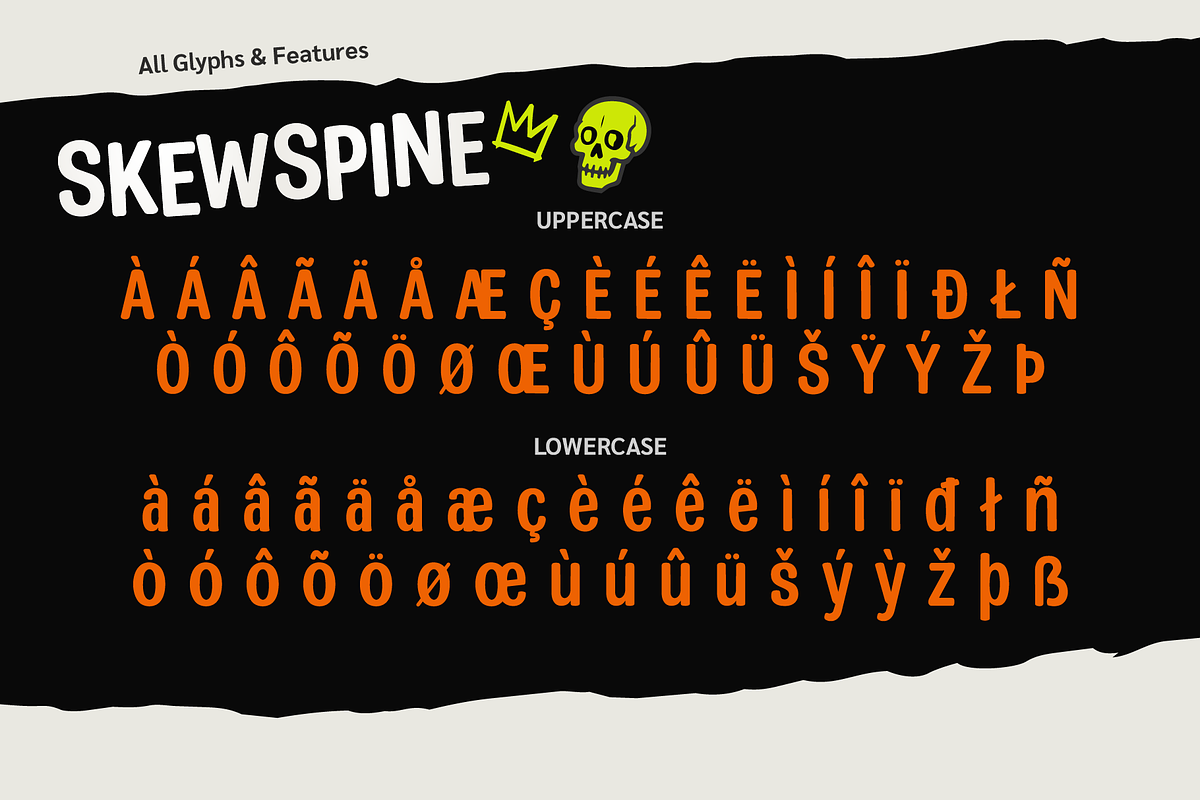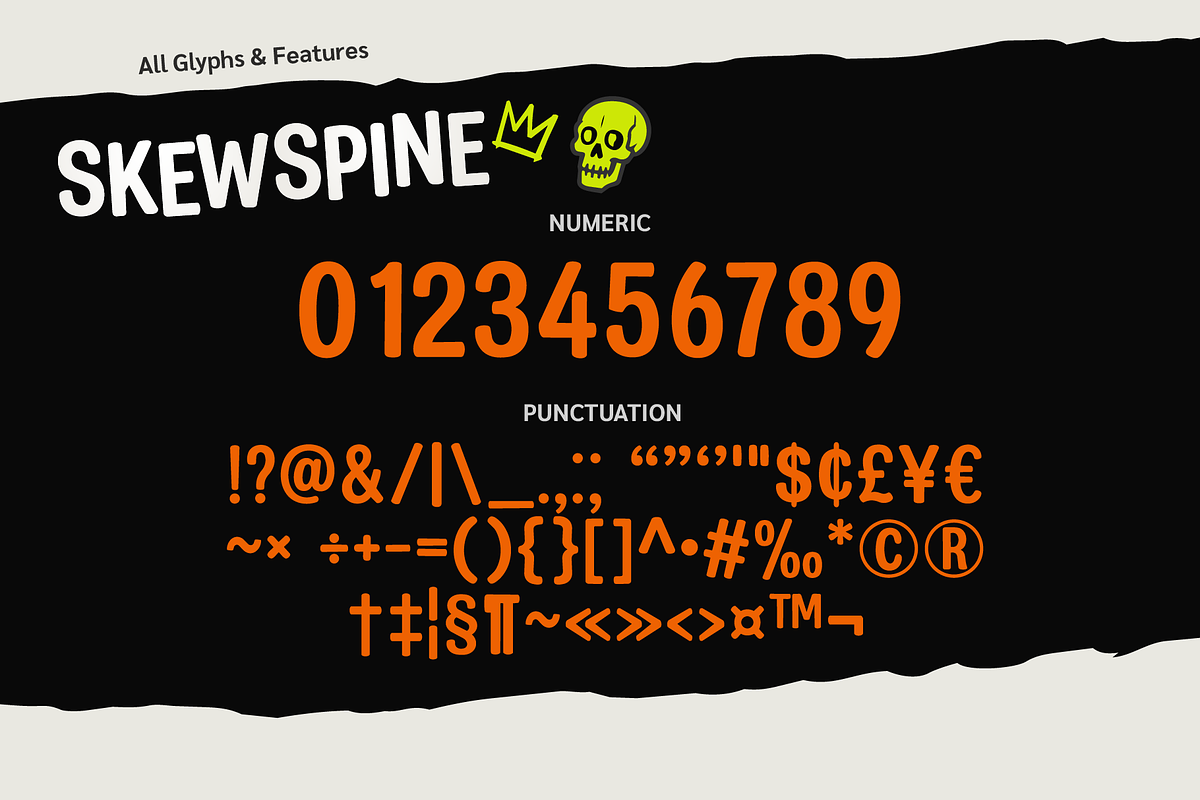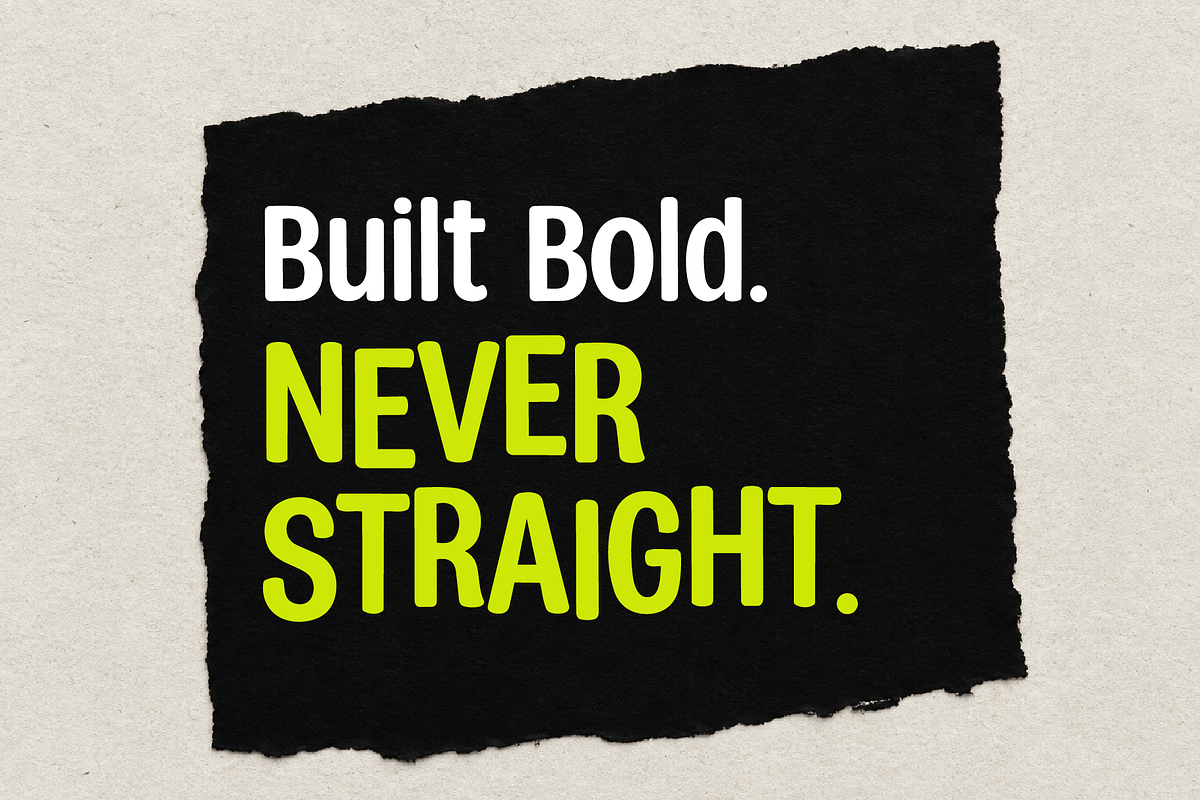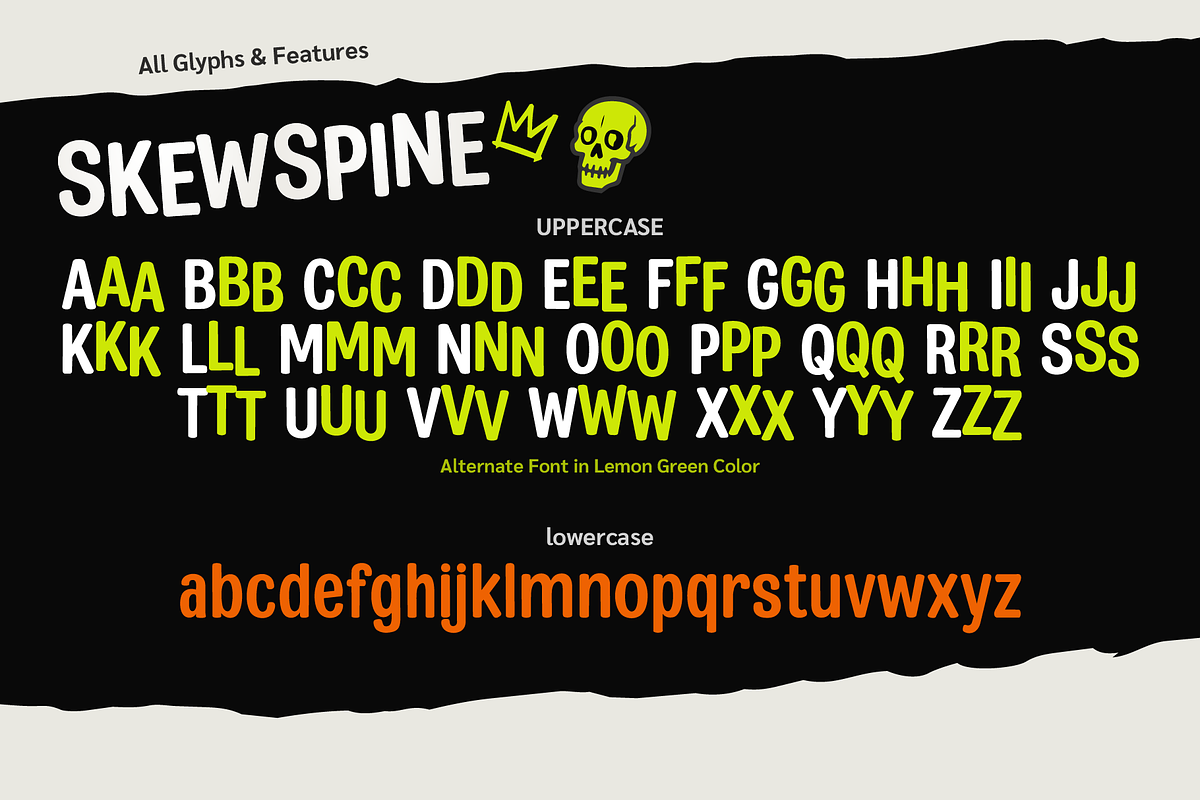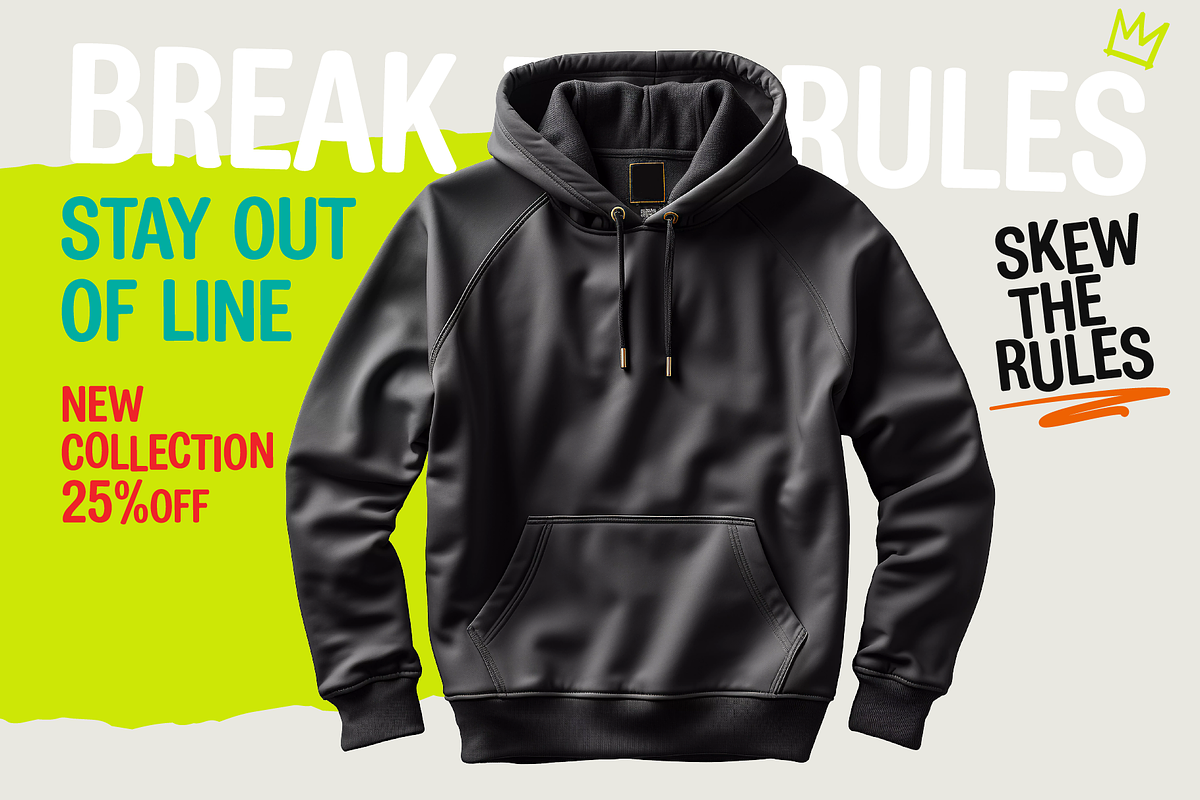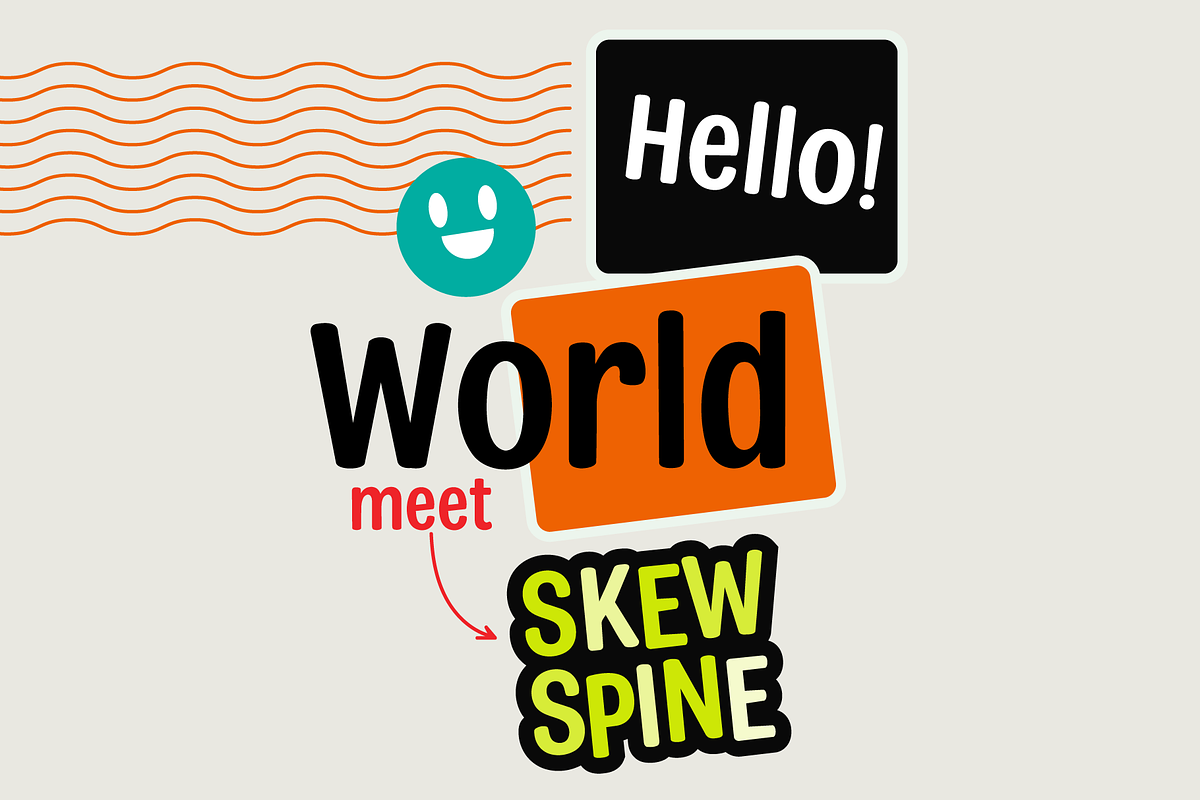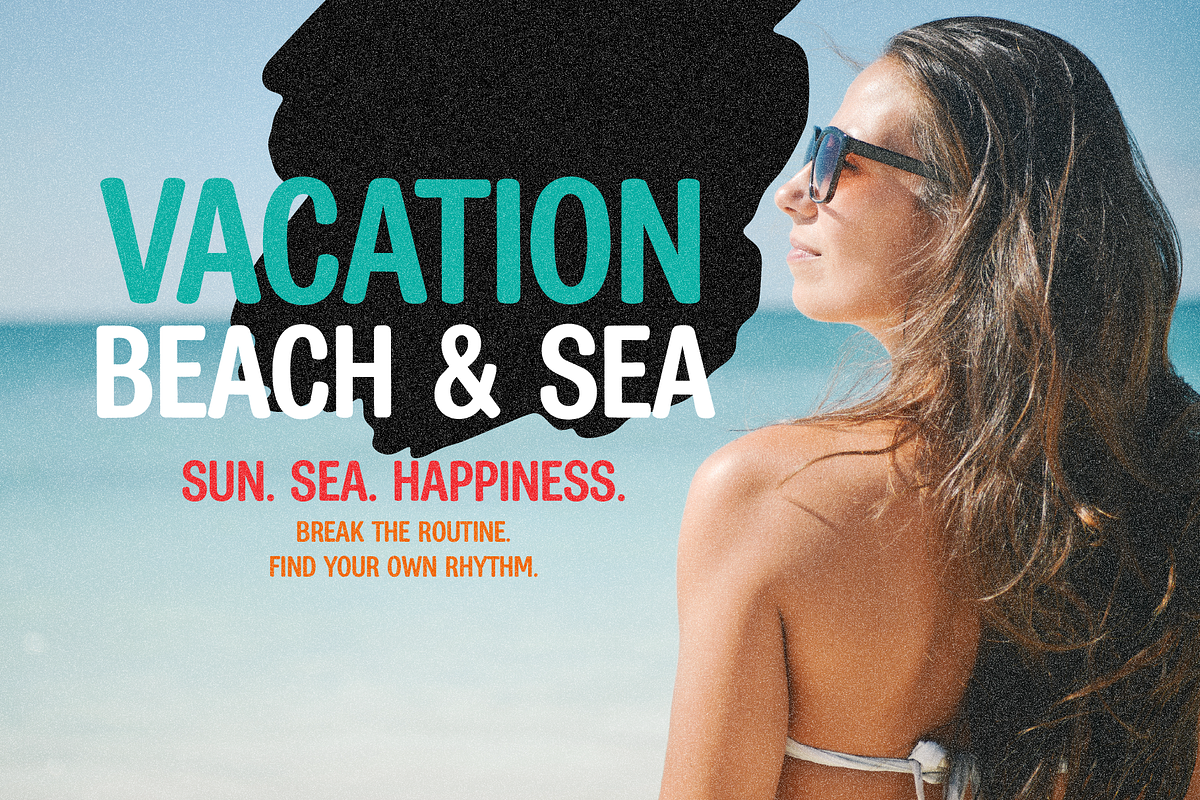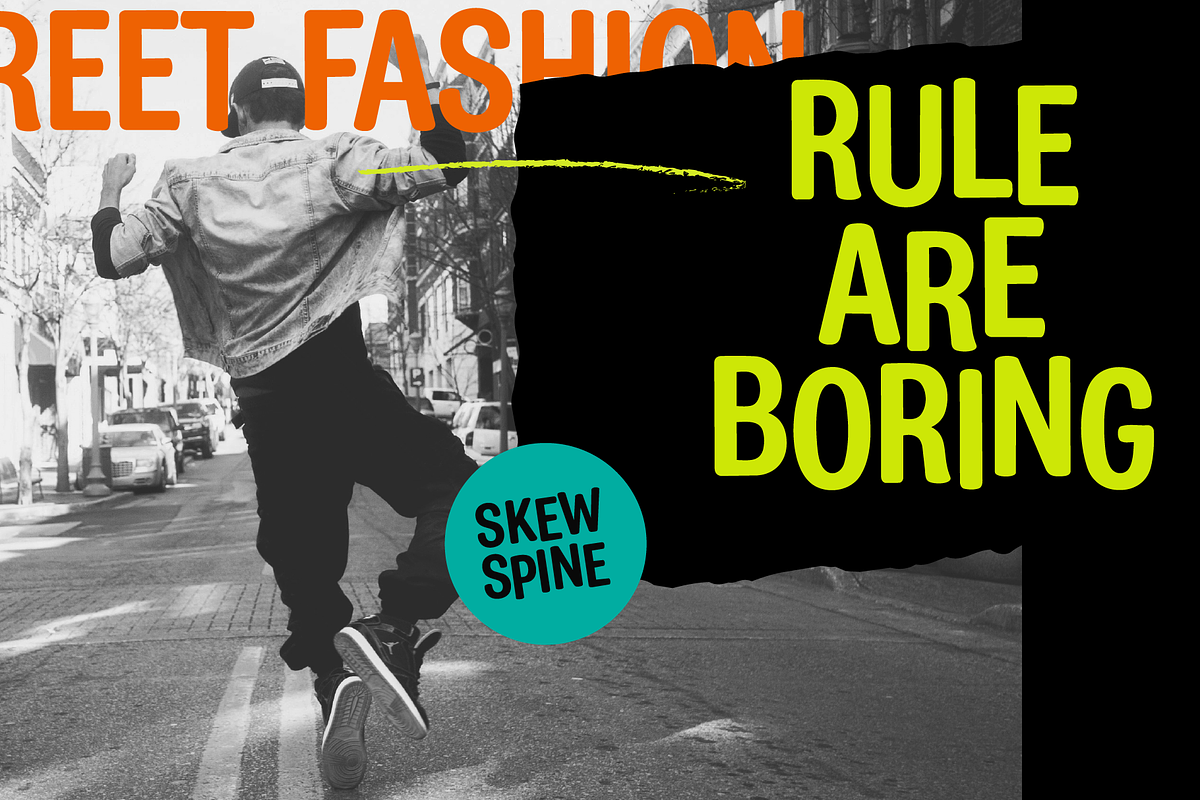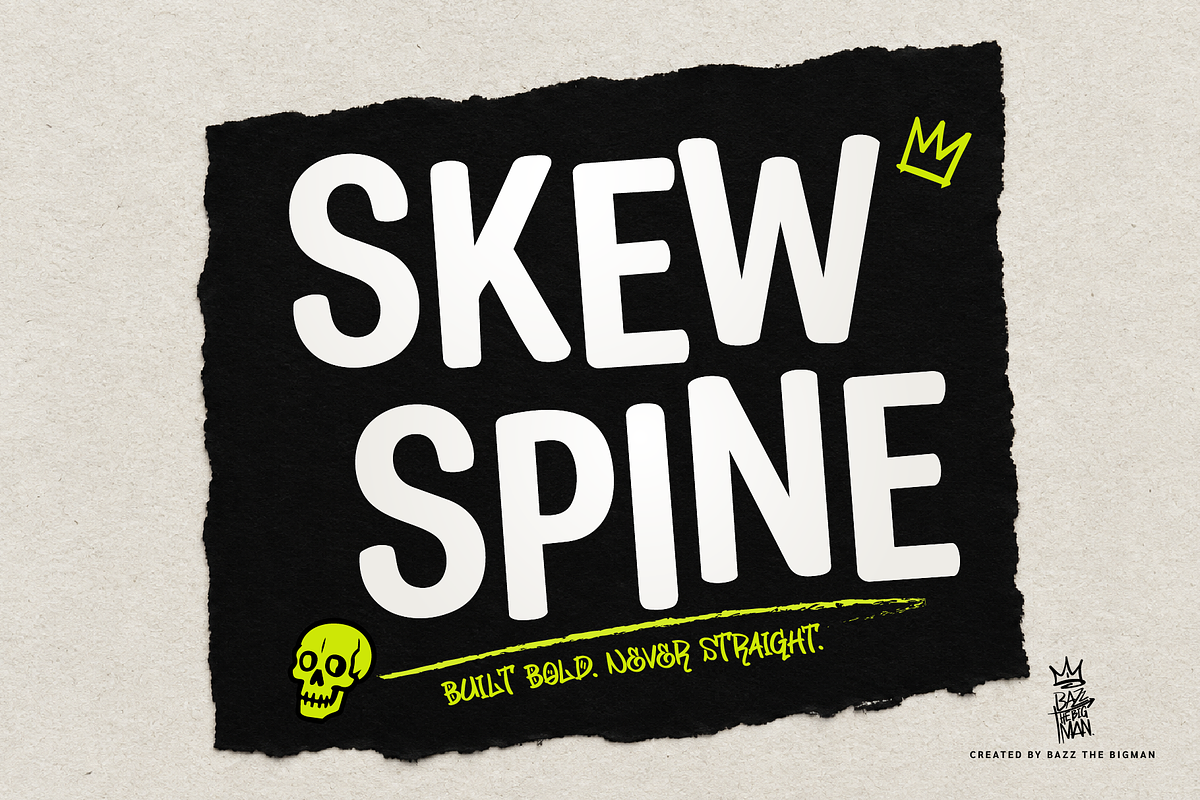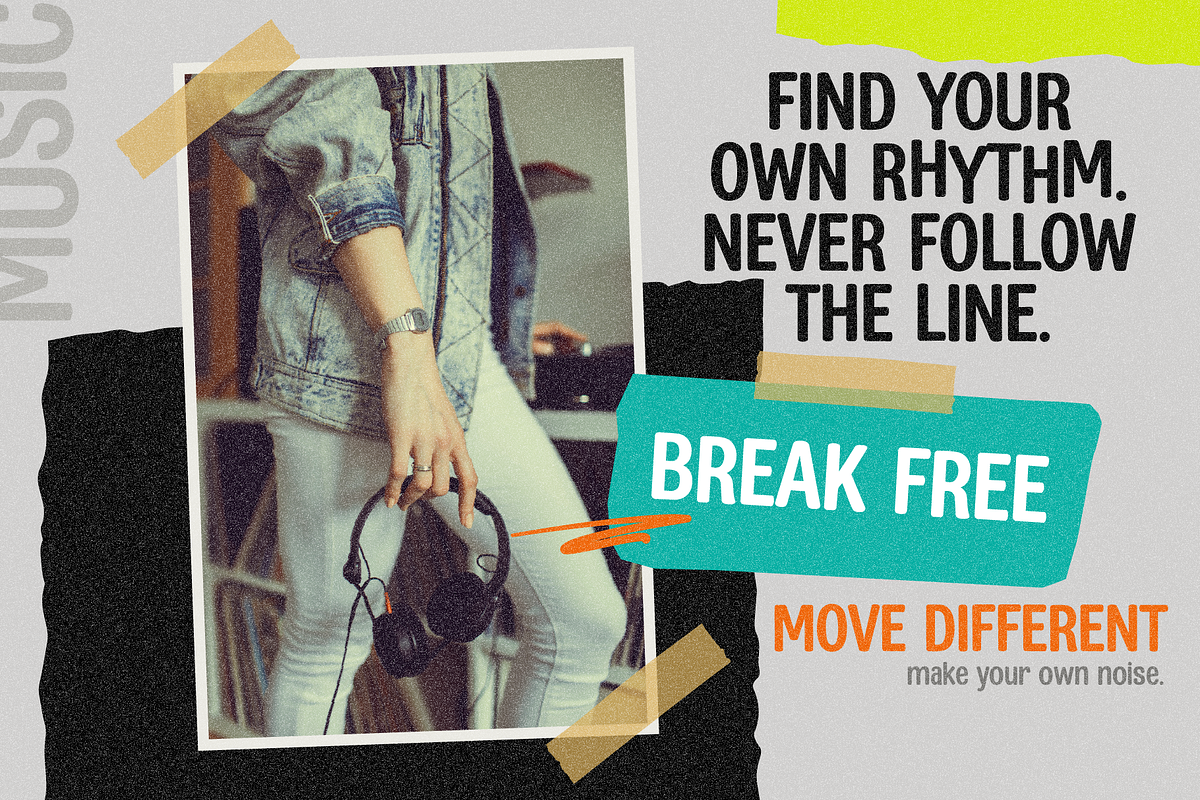
Skew Spine
SKEWSPINE — Built Bold. Never Straight.
Meet SKEWSPINE, a bold and expressive display typeface designed to break away from perfect lines and predictable typography.
With its condensed proportions, hand-drawn character, subtle irregularity, and energetic rhythm, SKEWSPINE brings a raw, playful, and rebellious personality to your designs. It feels confident without being overly polished — making it perfect for projects that want to stand out, break rules, and move differently.
SKEWSPINE works beautifully for streetwear graphics, fashion posters, album artwork, branding, merchandise, editorial layouts, advertising, social media graphics, event posters, packaging, stickers, and creative headlines.
Its distinctive letterforms are designed to create strong visual impact, especially when used for large display typography, bold headlines, short phrases, and impactful slogans.